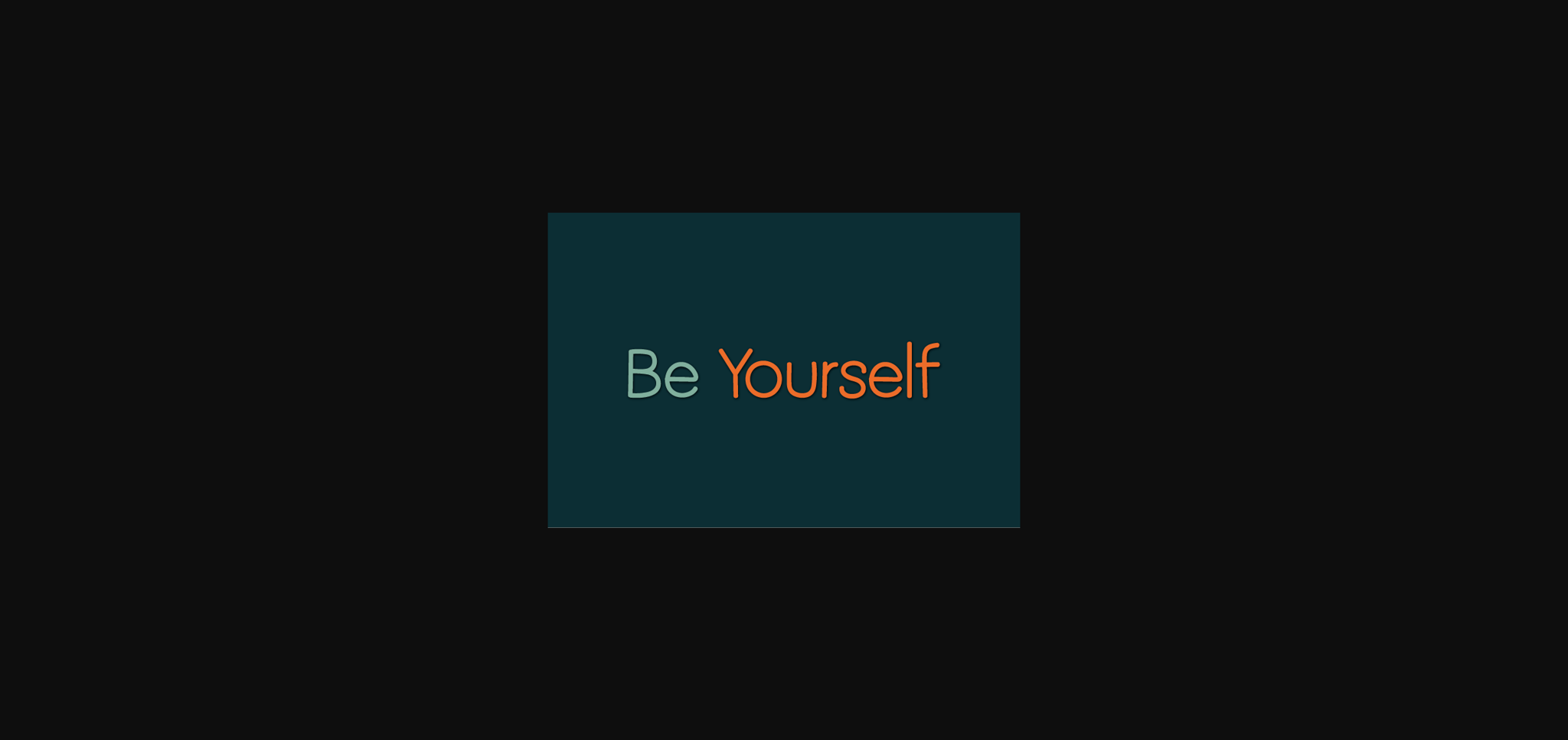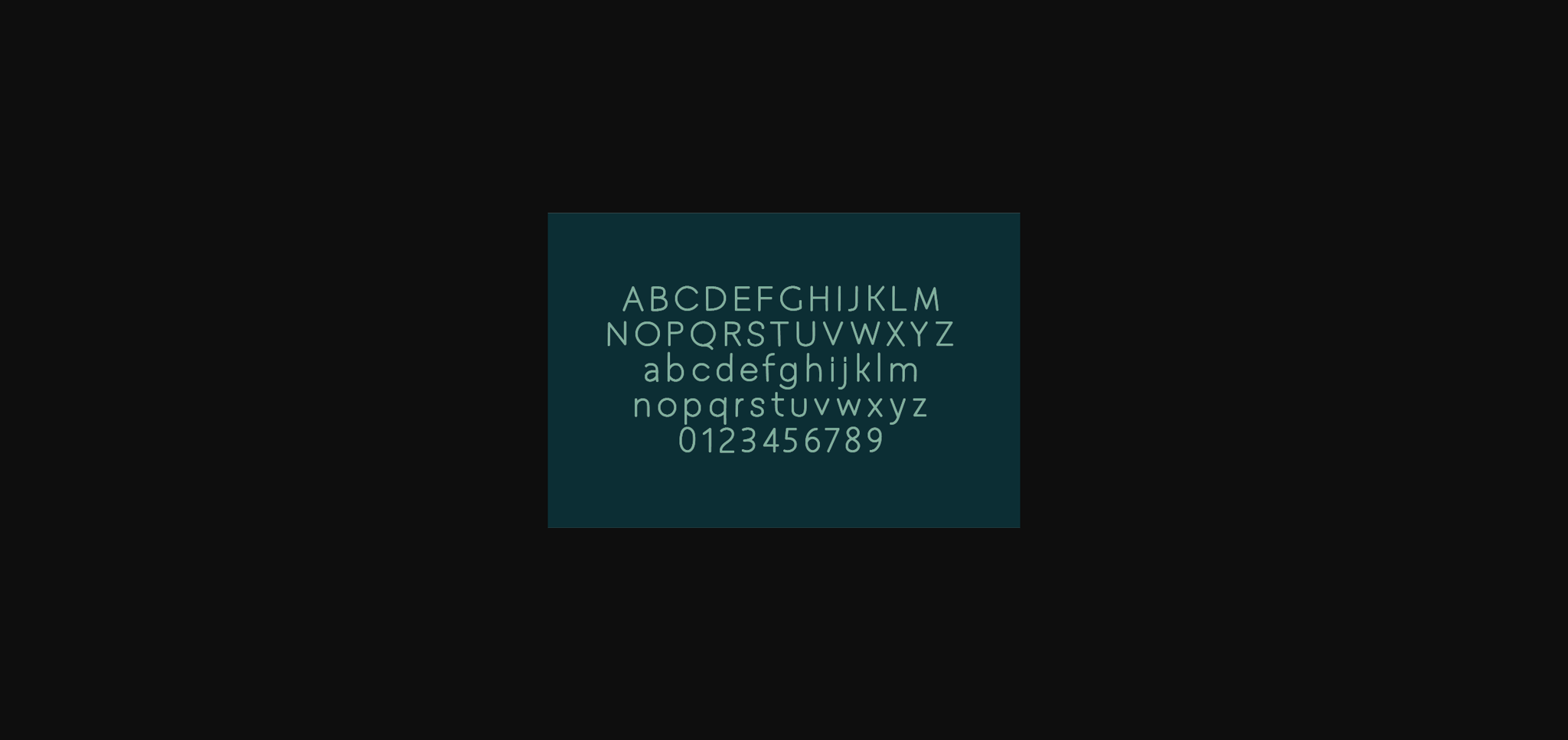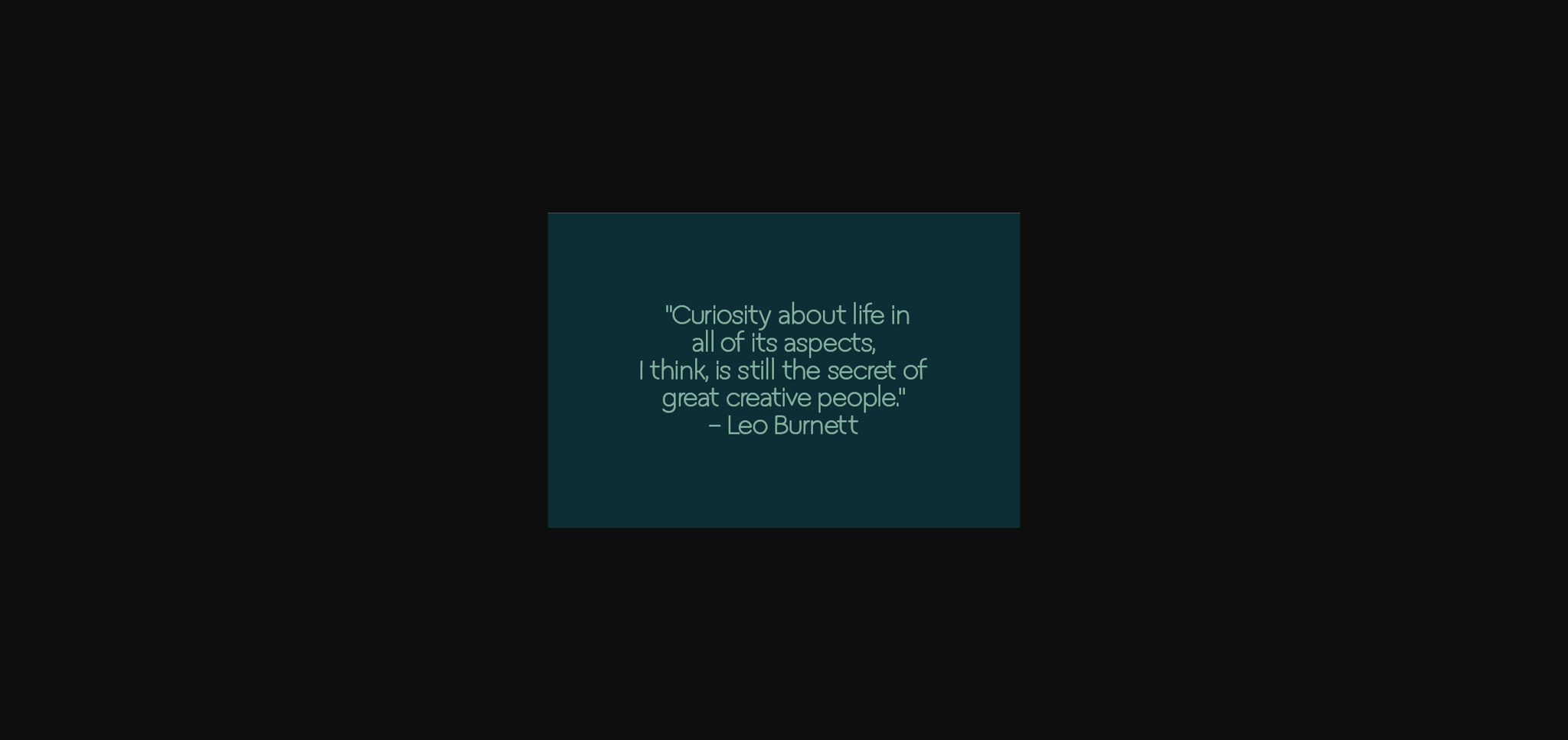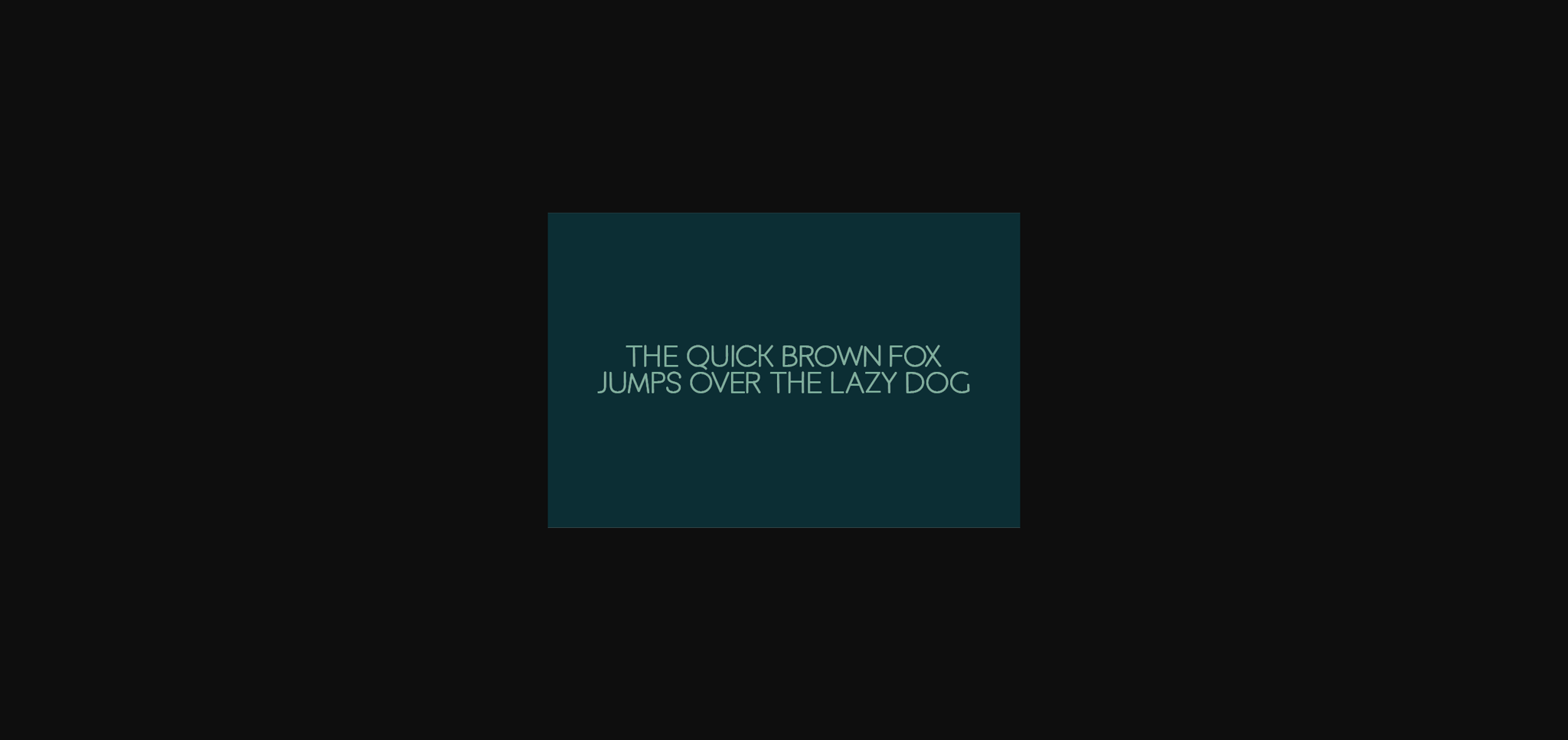
About Be Yourself Font
Be Yourself is a casual and neat sans serif font that impresses through its natural and elegant style. This typeface will enhance your craft with little effort, making your product stand out from the competition.